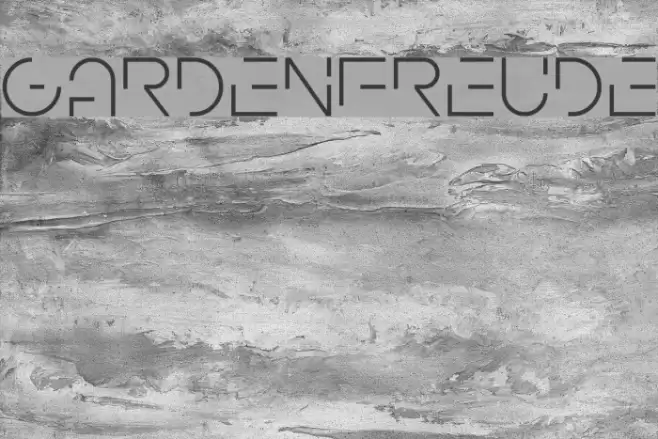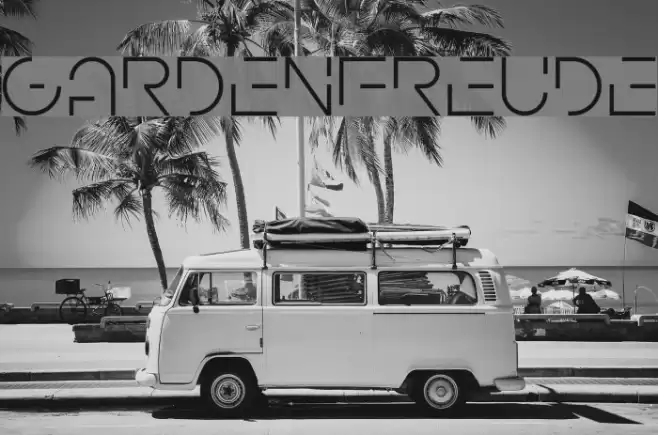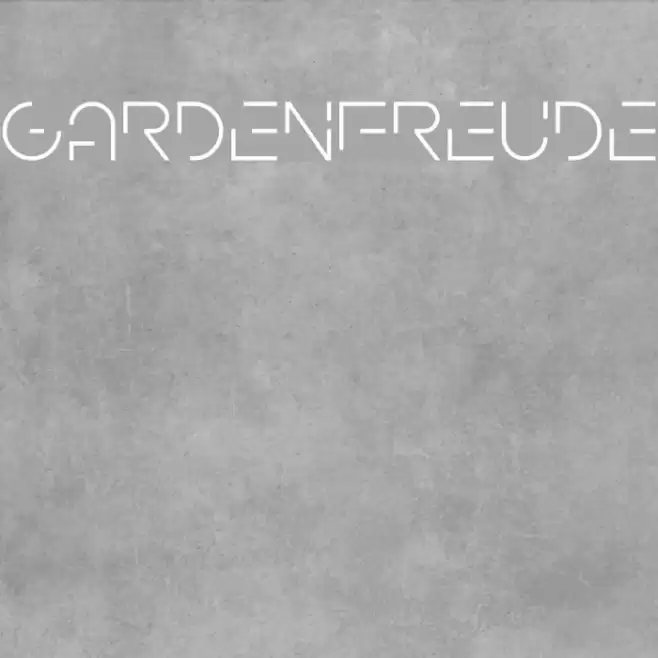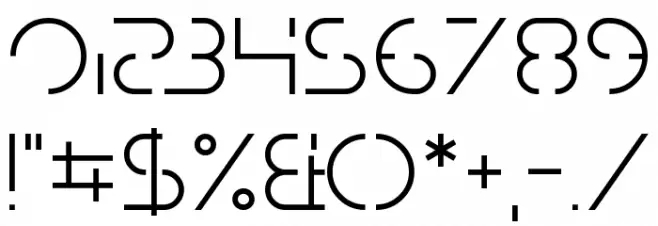
Gardenfreude Font
Gardenfreude Description
This font features a modern and geometric design with a futuristic feel. The characters are composed of clean, straight lines and precise curves, creating a minimalist aesthetic. The uppercase and lowercase letters maintain a consistent style, emphasizing symmetry and balance. The numerals and special characters follow the same design principles, ensuring uniformity across the font. The overall appearance is sleek and contemporary, making it suitable for projects that require a cutting-edge look.
A modern, geometric font with a futuristic and minimalist design from Uncategorized fonts.
- Proposed Projects: Ideal for technology branding, modern art posters, and innovative product packaging.